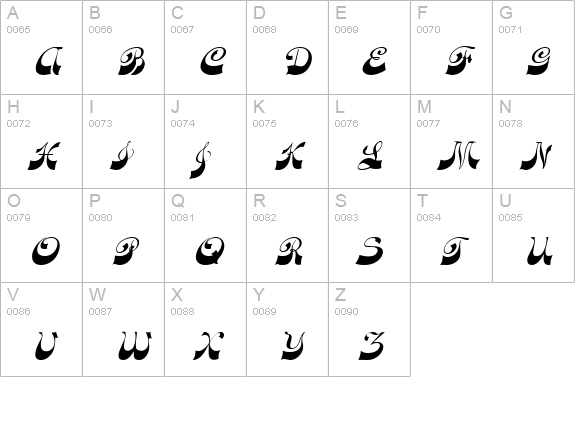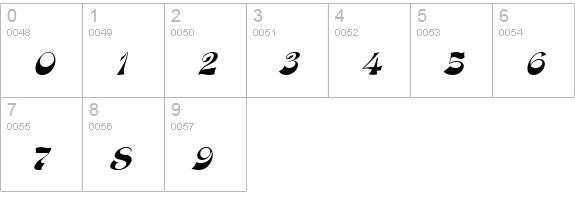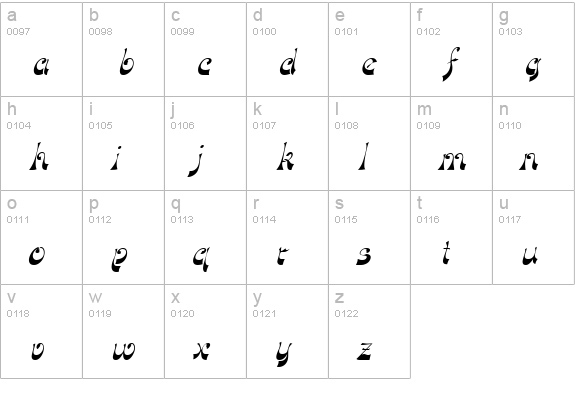
FunkyFaceUpright Italic Font Details
FunkyFaceUpright Italic is a distinctive, italic variant in the FunkyFaceUpright typeface family \xE2\x80\x94 well suited to design and typography projects.
Introducing FunkyFaceUpright Italic font, a vibrant and playful typeface that exudes a unique sense of fun and creativity. With its quirky and offbeat design, this font is perfect for adding a touch of personality to any project. The italic style adds a dynamic and energetic flair to your text, making it stand out in a crowd. What's even better is that FunkyFaceUpright Italic font is available for free download at FontsMarket.com! This means you can easily access this eye-catching font and use it in your designs without any cost. Whether you're working on a poster, logo, or social media graphic, FunkyFaceUpright Italic font is sure to bring a fresh and funky vibe to your work. Don't miss out on this fantastic opportunity to elevate your designs with this free and fabulous font!